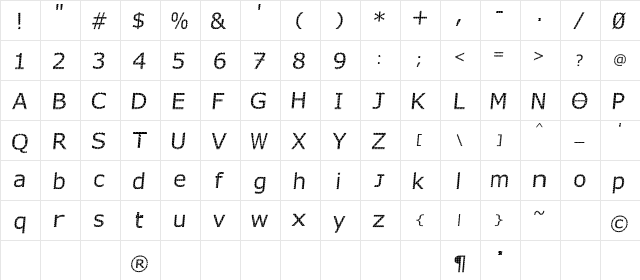
Bunkum Regular
Design Context for Bunkum Typeface
Bunkum offers clean, dependable letterforms without strong stylistic allegiance, making it a practical choice for designers who need flexibility.
Pro Tip: Use Bunkum in both headline and body roles to test its range before committing to a single application.